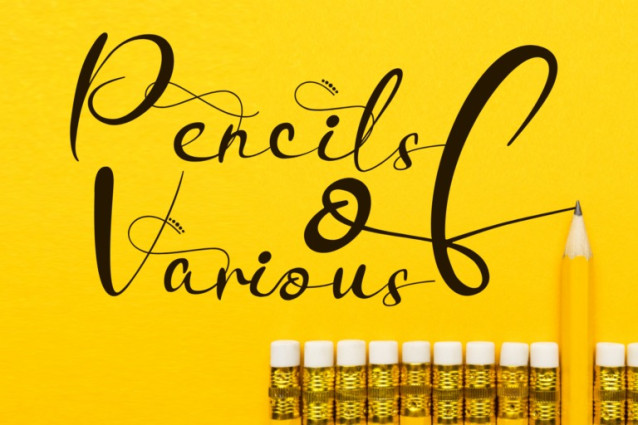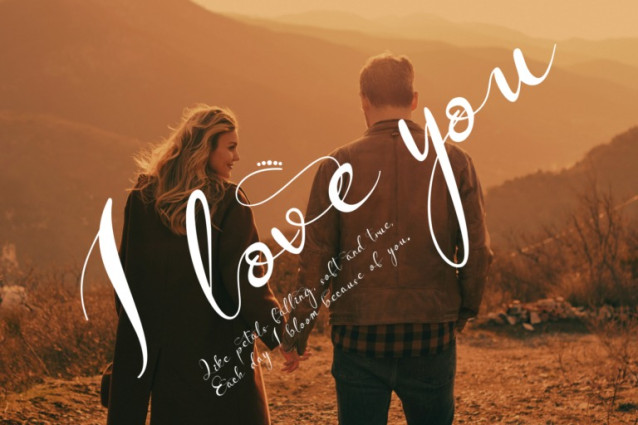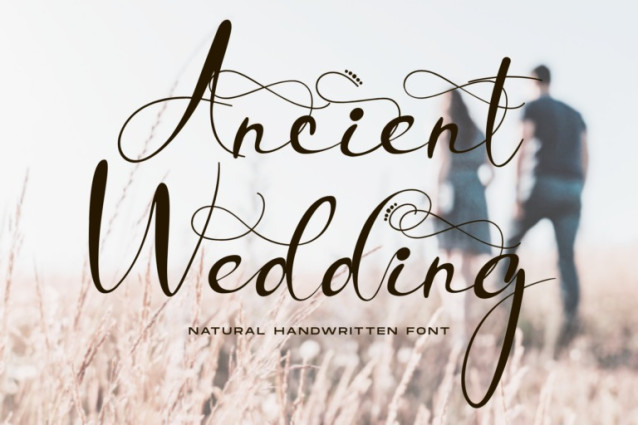
Ancient Wedding Font
Ancient Wedding Font – An Elegant Calligraphy Script Font. Discover the elegance and natural flow of Ancient Wedding, a beautifully crafted handwritten script font designed to bring sophistication and a personal touch to your projects. Inspired by the timeless art of calligraphy, Ancient Wedding features graceful curves, flowing connections, and a romantic aesthetic that feels both classic and contemporary.
✔ 100+ Unique Decorative Ligatures
✔ Butterfly-inspired stylistic alternates
About 100 ligatures combined with Stylistic Alternates Font: